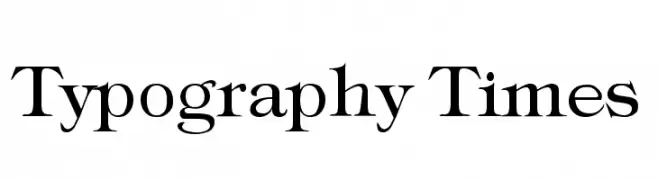
A bold, playful script font with a handwritten style.
A playful, handwritten font with smooth, rounded edges and a casual style.
A bold, sliced, and dynamic font with high visual impact.
A playful, hand-drawn comic-style font with bold outlines and irregular shapes.
A bold, distressed font with a grunge aesthetic.
A geometric, angular font with a modern, edgy style.
An elegant, flowing script font with ornate, cursive letterforms.
A lively, bold script font with a handwritten, fluid style.
A playful, flowing script font with bold, cursive letterforms.
A cursive, handwritten-style font with elegant, flowing strokes.
A flowing, cursive font with elegant, connected strokes.
A festive font with uppercase letters in snowmen and lowercase in snowflakes.
A clean, geometric font with a modern and professional style.
A bold, modern font with clean, geometric lines and a slightly condensed style.
A modern, bold, italic font with a sleek and slightly condensed design.
A modern, italic font with a sleek and streamlined design.
A modern, geometric sans-serif font with a clean and elegant design.
A sleek, modern, and italic font with a light, airy feel and low contrast.
A bold, textured font with an edgy, distressed style perfect for impactful designs.
A bold, spiky font with a dynamic and edgy appearance.
A decorative font with elegant, flowing letterforms and subtle serifs.
A modern-vintage font with elegant curves and distinctive serifs.
A playful, hand-drawn font with a spooky, whimsical style.
A playful, whimsical font with a spooky flair and unique curves.
A playful and whimsical font with bold, curvy letterforms and a festive style.
A bold, sports-themed decorative font with integrated athlete illustrations.
A bold, geometric font with a sporty, digital display style.
A geometric, square-shaped font with a modern and digital aesthetic.
A playful, hand-drawn font with bold, irregular strokes and a whimsical style.
A bold, distressed font with a rugged, vintage style.
An ornate, vintage-style font with intricate curls and flourishes.
A whimsical and decorative font with celestial embellishments and swirling accents.